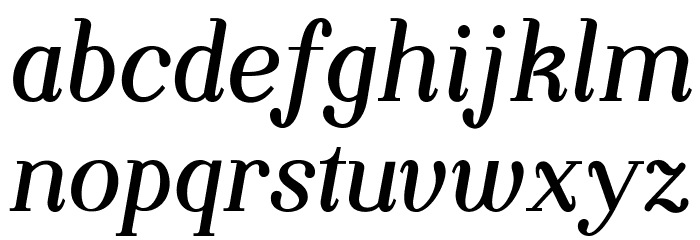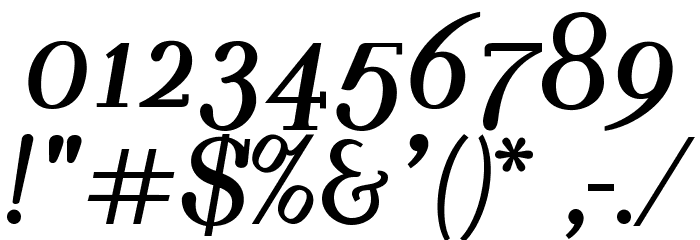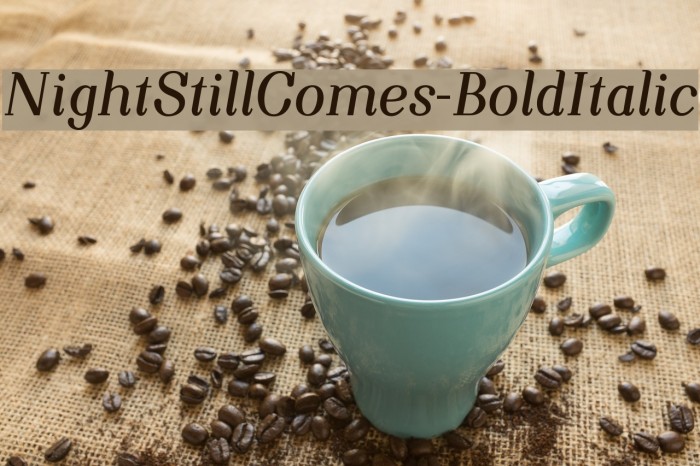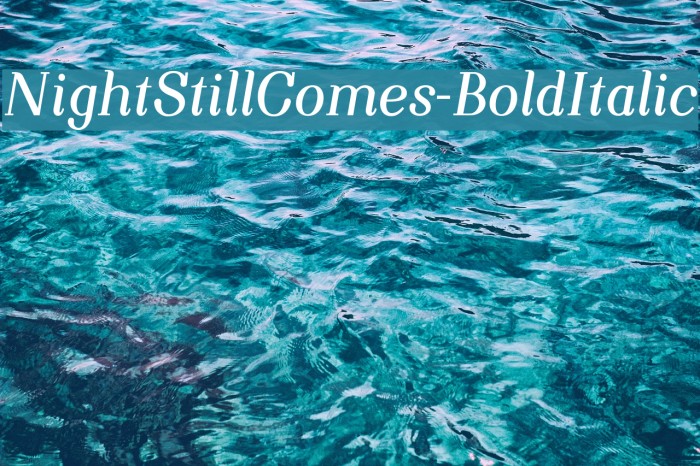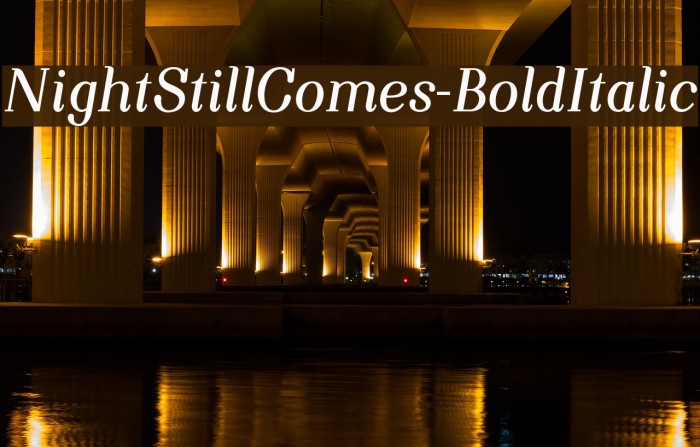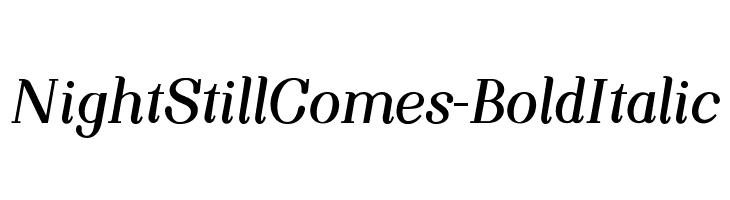
NightStillComes-BoldItalic Font
This font features a classic serif style with elegant curves and a sophisticated italic slant. The bold weight enhances its presence, making it suitable for impactful text while maintaining readability. The uppercase letters are tall and commanding, while the lowercase letters offer a smooth, flowing appearance. Numerals are clear and distinct, complementing the overall design. The special characters are well-integrated, adding versatility to the font's use. The italic nature of the font gives it a dynamic and stylish look, perfect for projects that require a touch of elegance and tradition.
A bold, italic serif font with elegant curves and a classic style.
- Font: NightStillComes-BoldItalic
- Weight: Bold Italic
- Proposed Projects: Ideal for book covers, formal invitations, branding, and editorial design.
- Category: Serif
- Overall Style: Classic